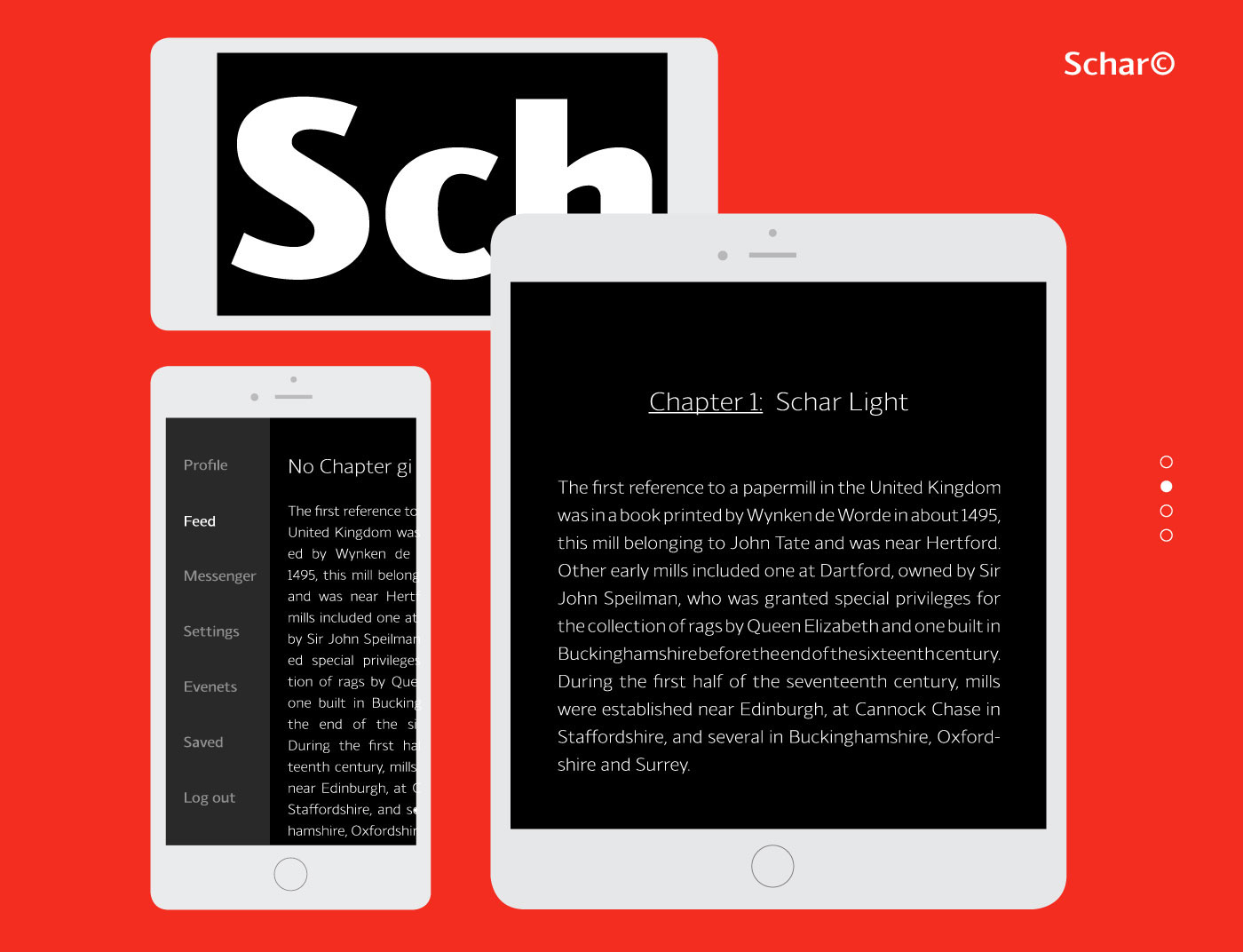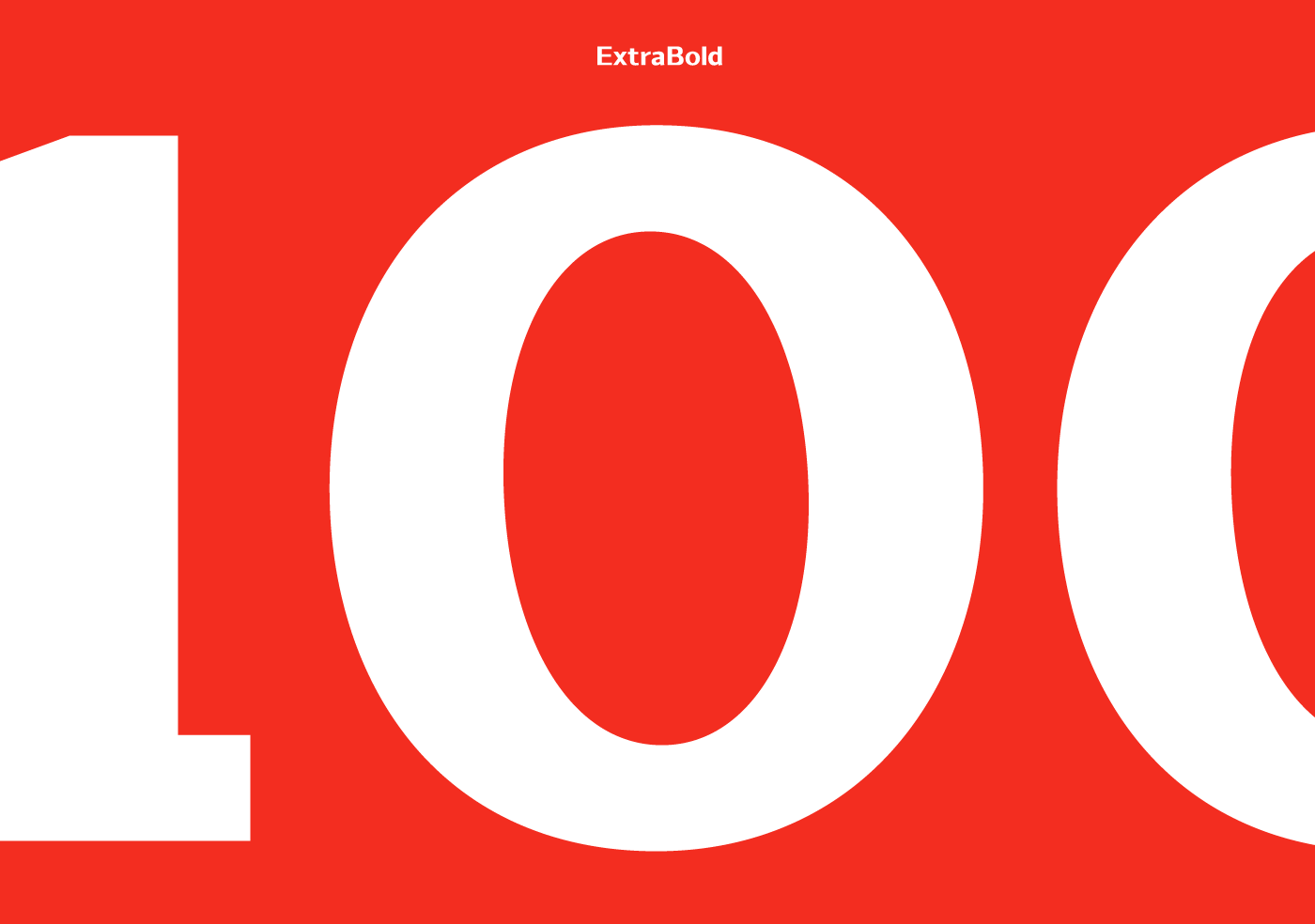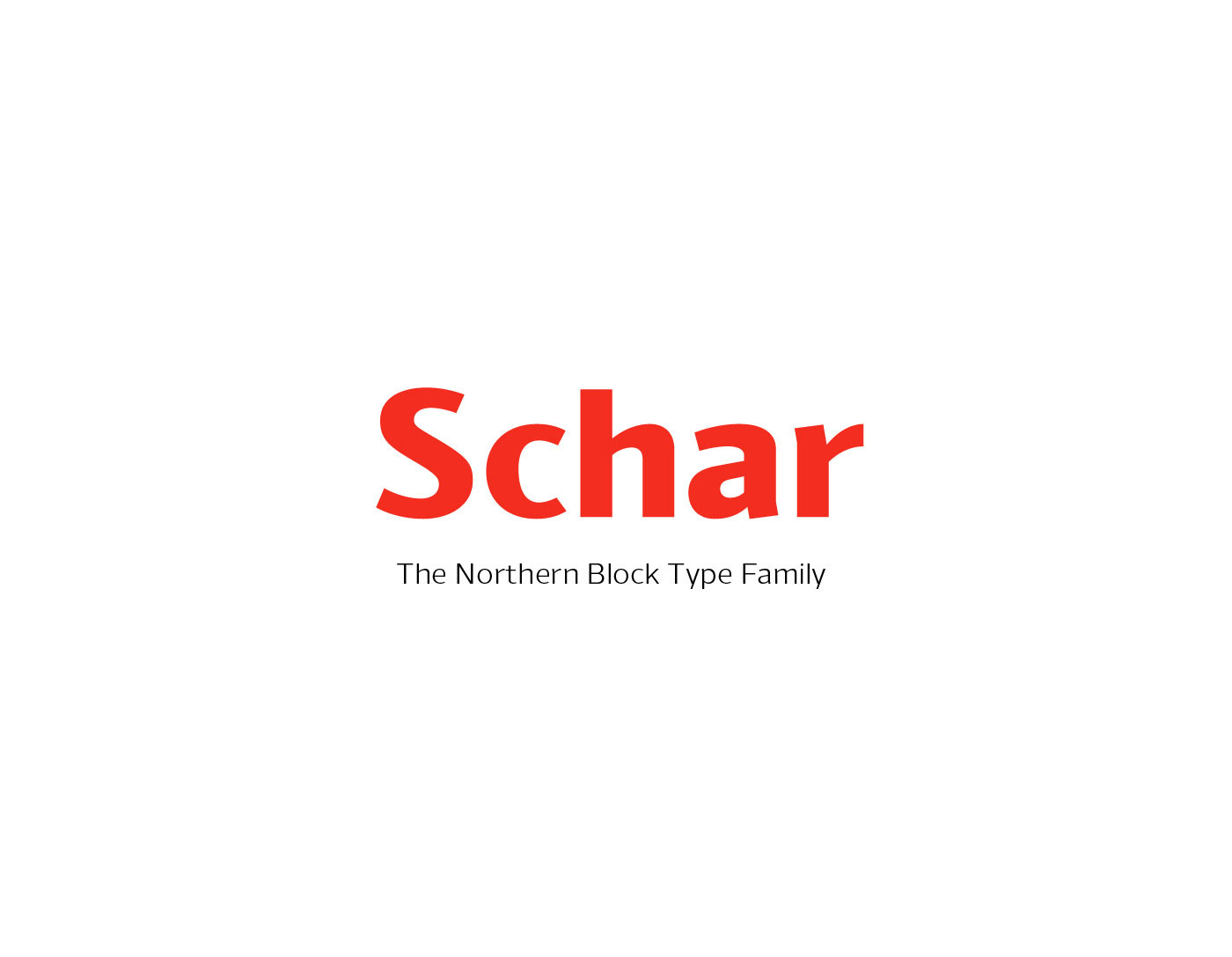
Schar Font Family
A humanist sans designed like a serif with high-stroke contrast, but without serifs. Calligraphic forms and consistent angle axis are combined to create a fluid and dynamic personality. Schar is a balanced sans serif with classic proportions ideally suited for modern day text based projects. Details include eight weights and true italics, over 1000 characters with alternative lowercase a, e, g and y. Seven variations of numerals, true small caps with accents, ligatures, manually edited kerning and Opentype features.